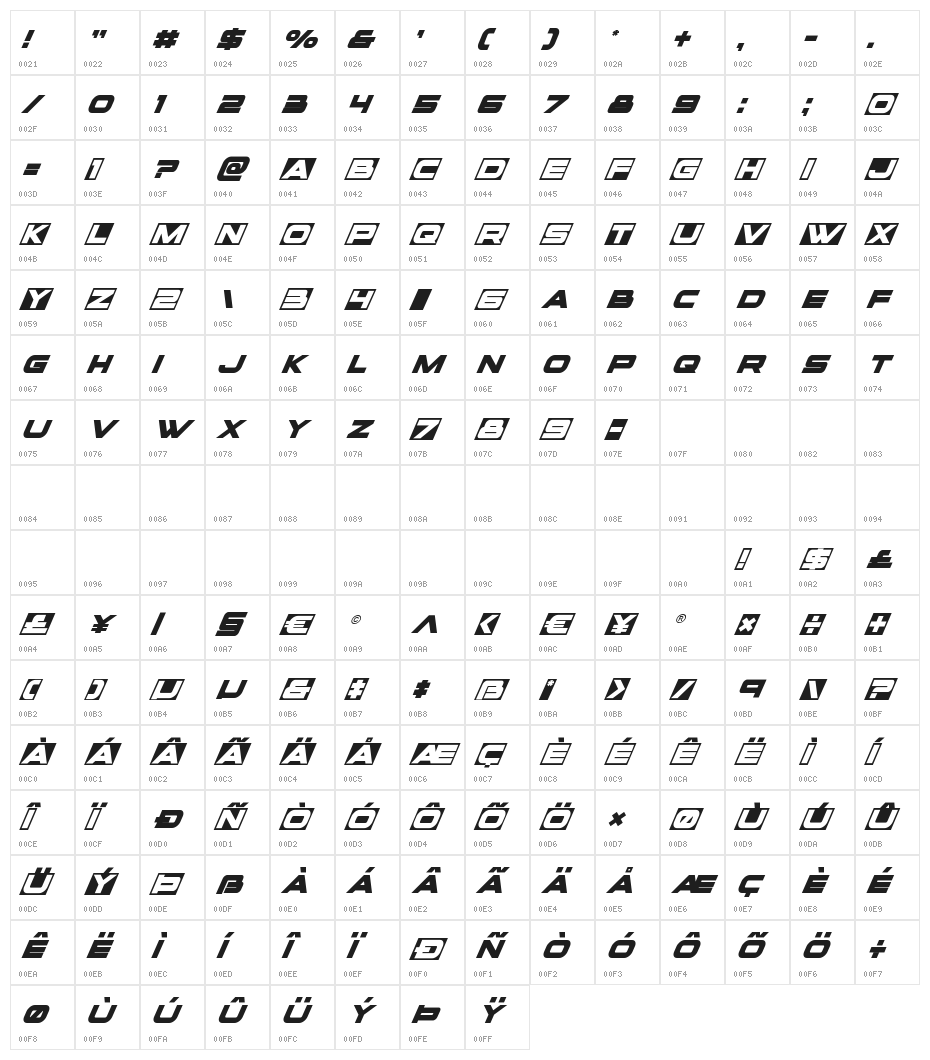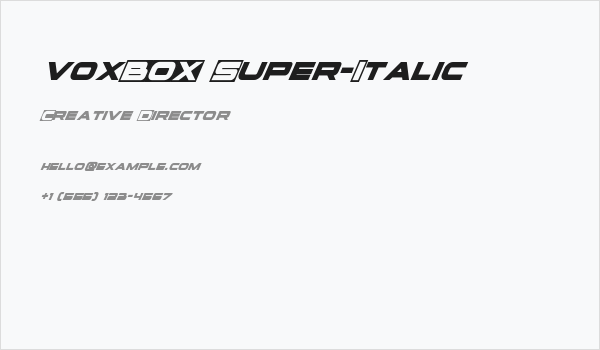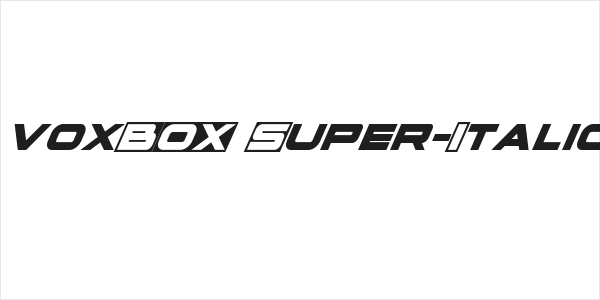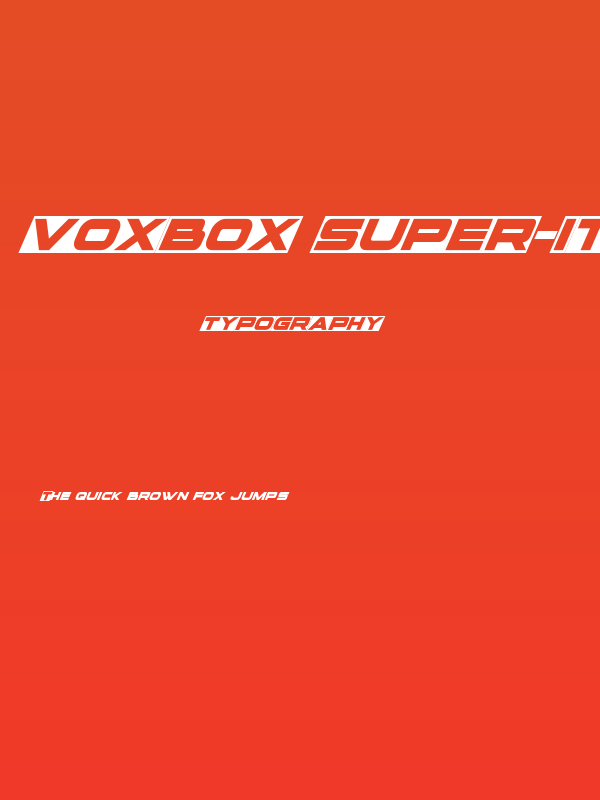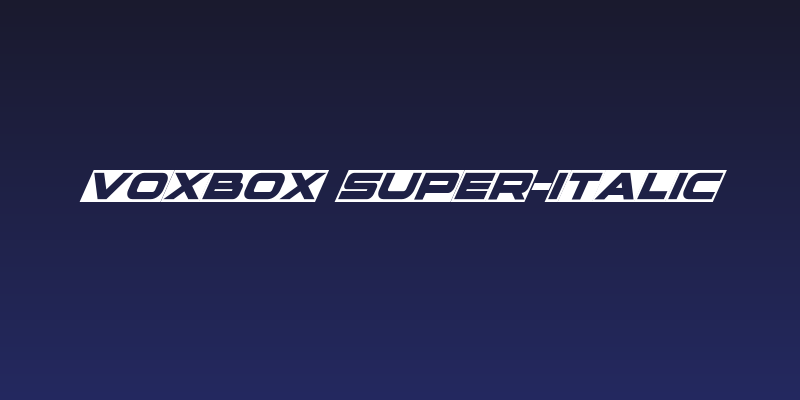
voxBOX Super-Italic Font
voxBOX Super-Italic Description
This font exhibits a dynamic and modern style with a strong italic slant, giving it a sense of motion and speed. The characters are bold and angular, featuring sharp edges and a futuristic aesthetic. The uppercase letters are particularly striking, with a consistent slant that enhances their visual impact. The numerals and special characters maintain the same bold and angular design, ensuring uniformity across all elements. This font is ideal for projects that require a contemporary and energetic look.
| Proposed Projects | Ideal for sports branding, automotive advertisements, tech company logos, and dynamic poster designs. |